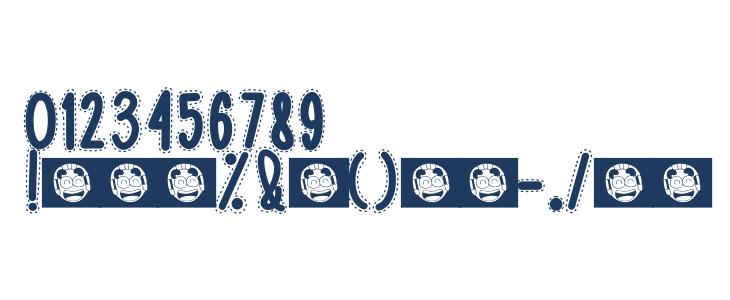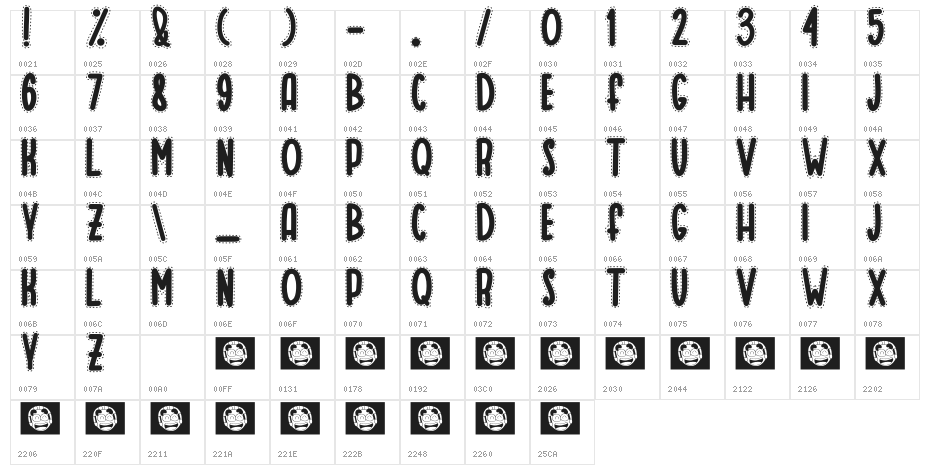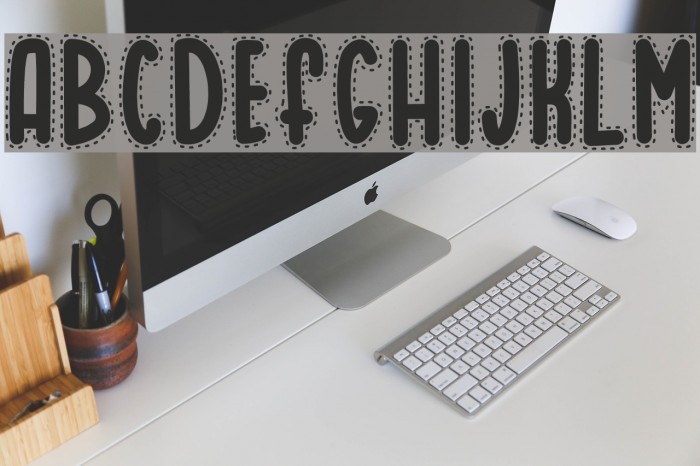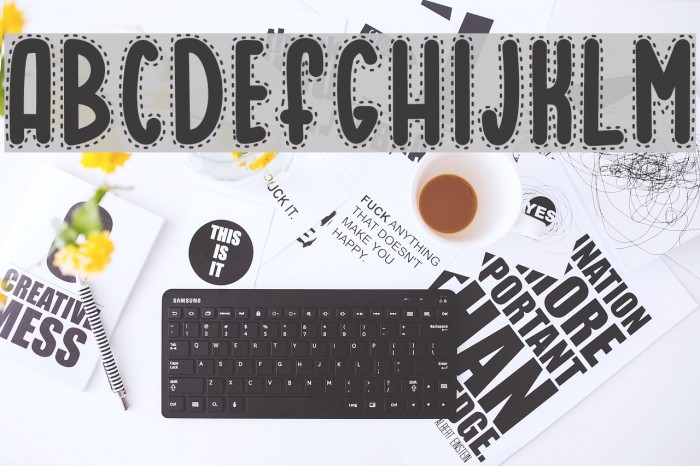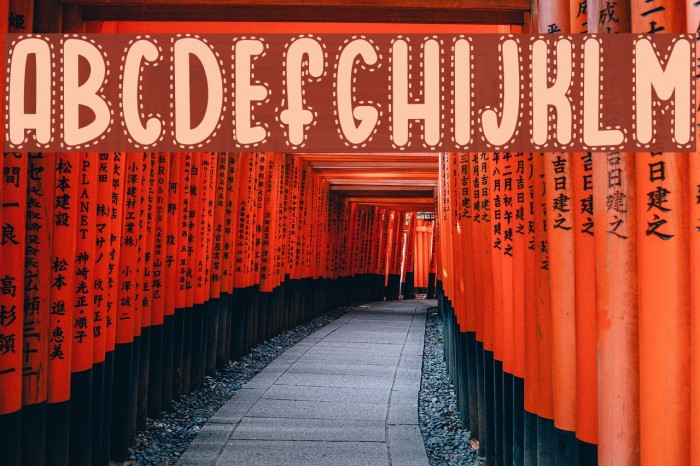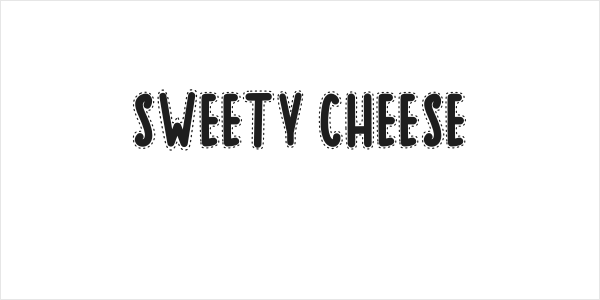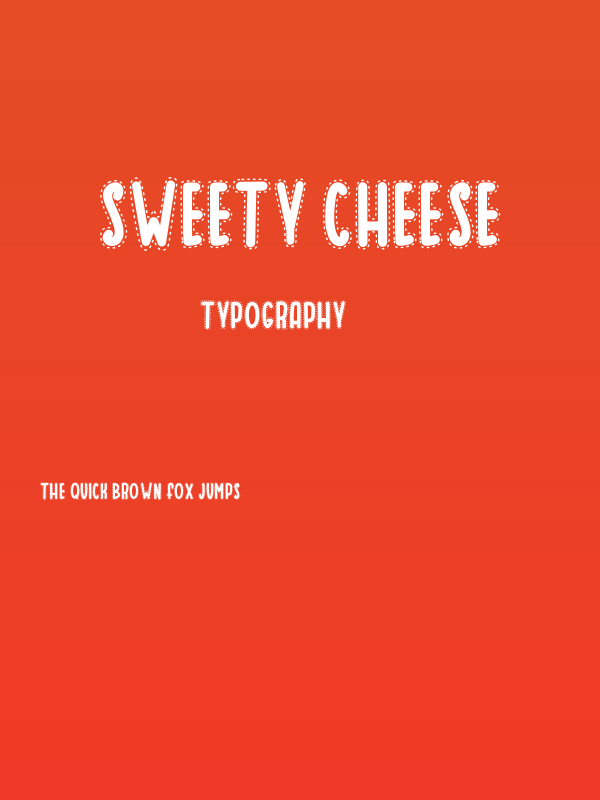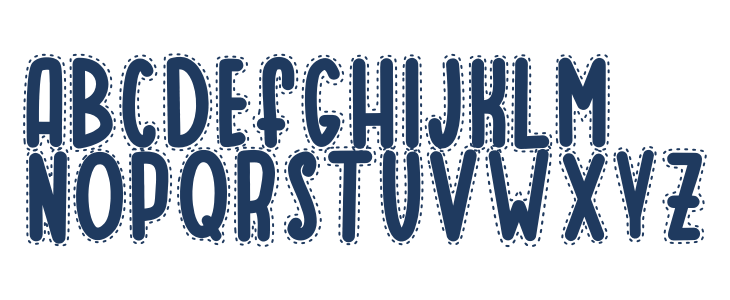
SWEETY CHEESE Font
SWEETY CHEESE Description
This playful and bold font features uppercase and lowercase letters with a unique dotted outline, creating a whimsical and eye-catching appearance. The characters are rounded and slightly irregular, adding a hand-drawn feel. The numbers and special characters maintain this style, ensuring consistency across all elements. The font's boldness and decorative nature make it ideal for projects that require a fun and engaging look.